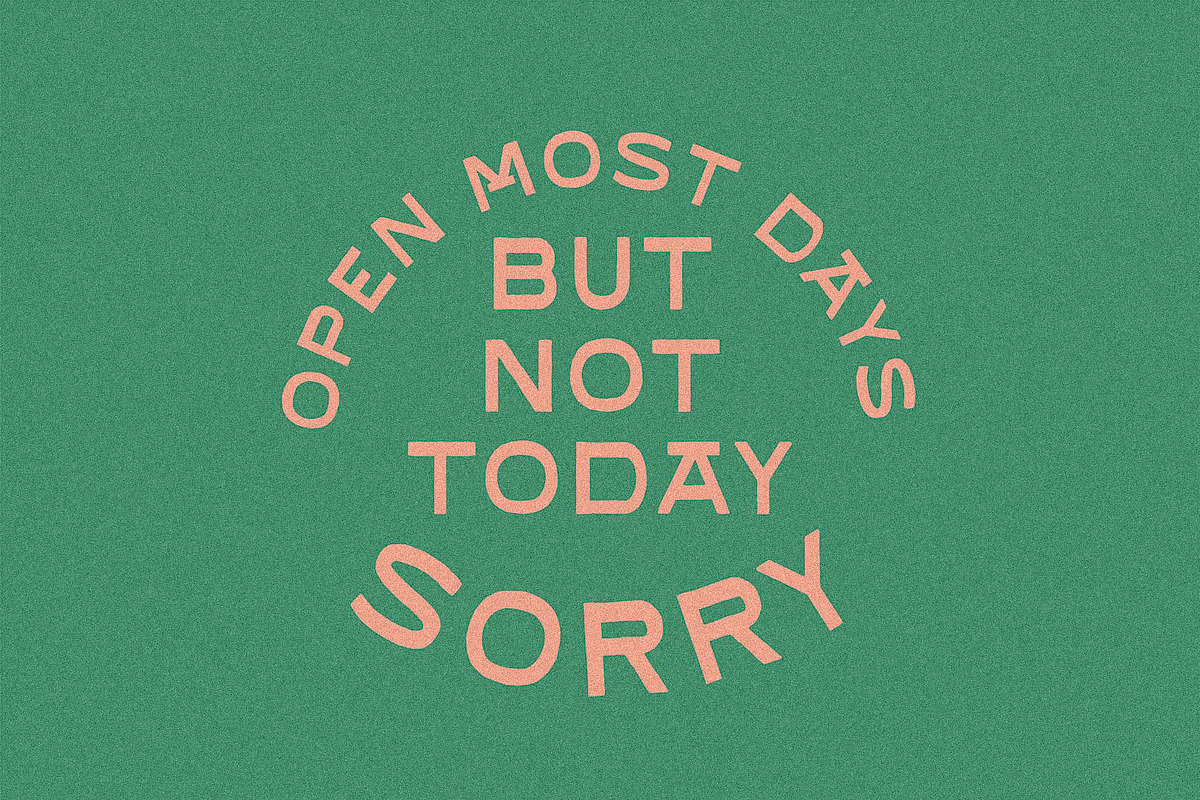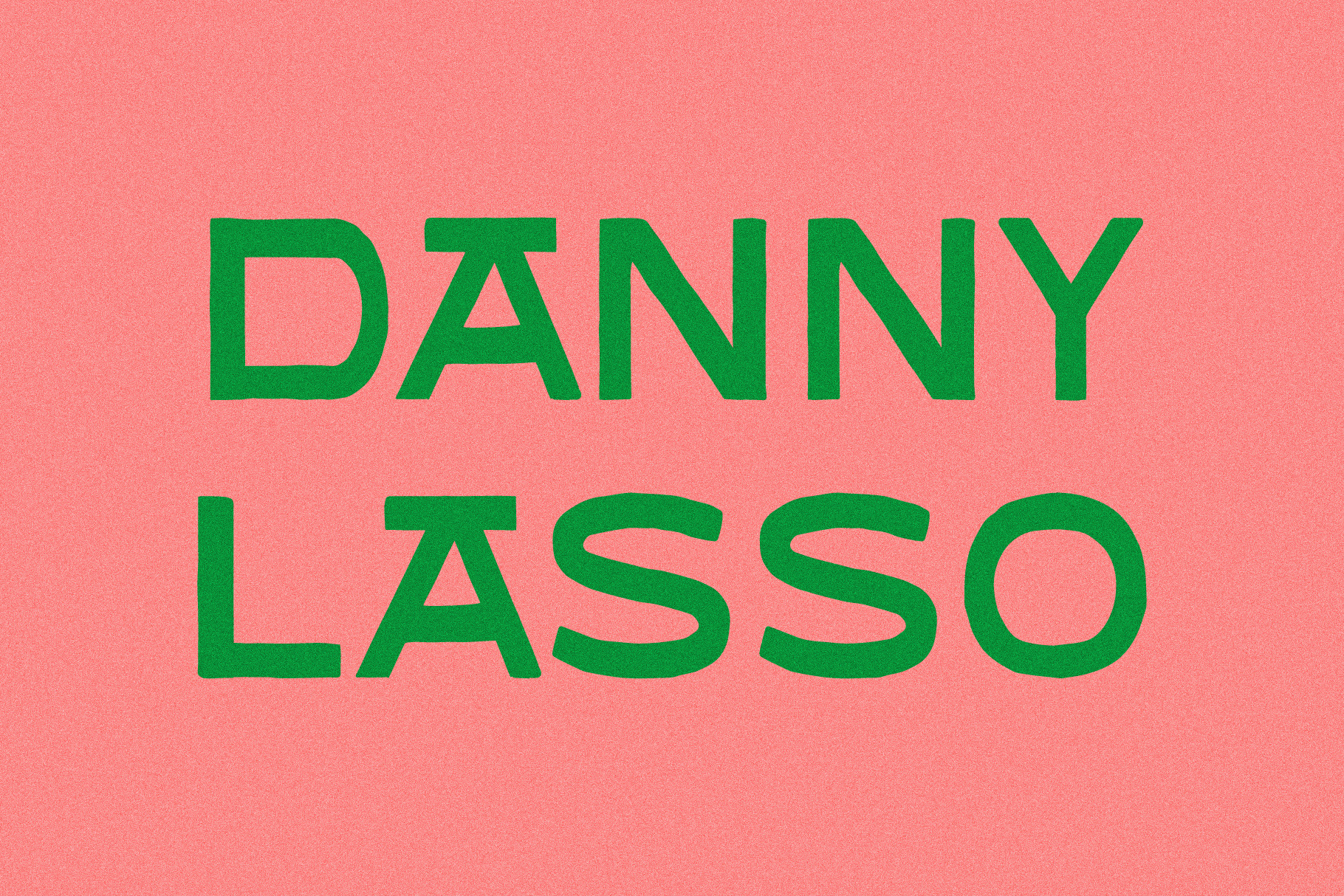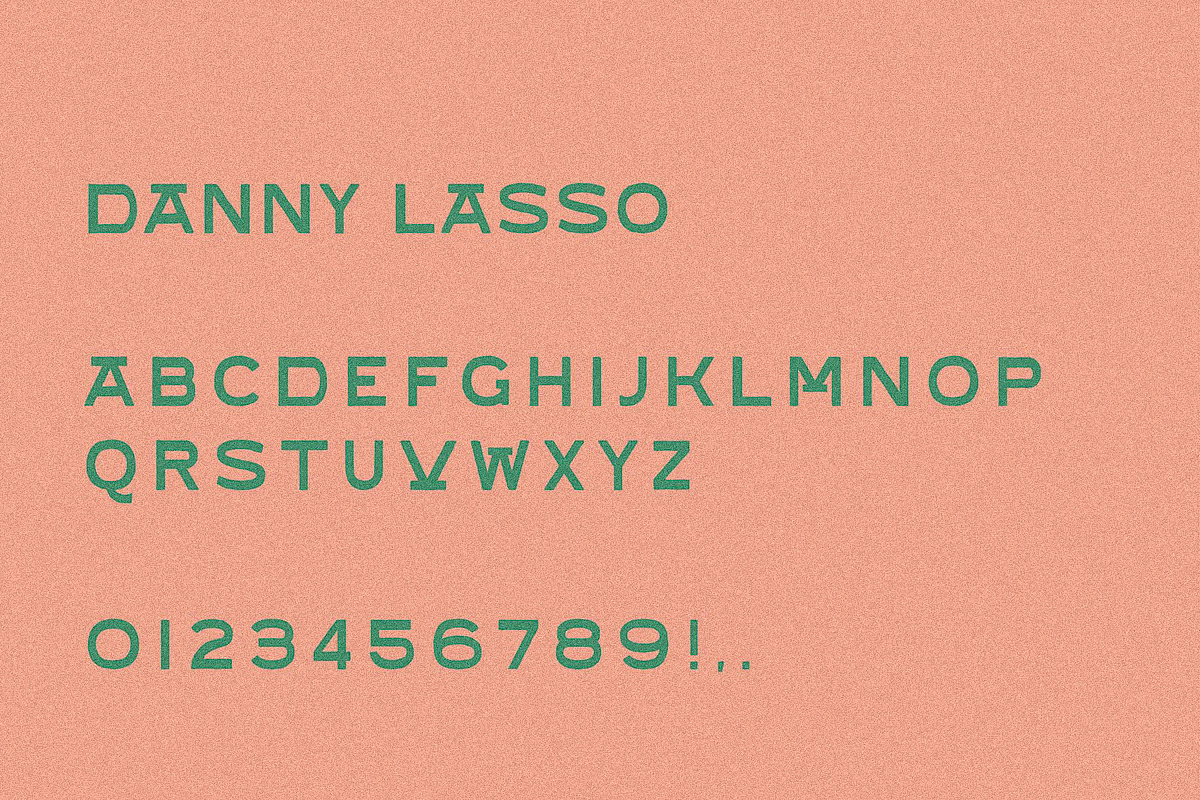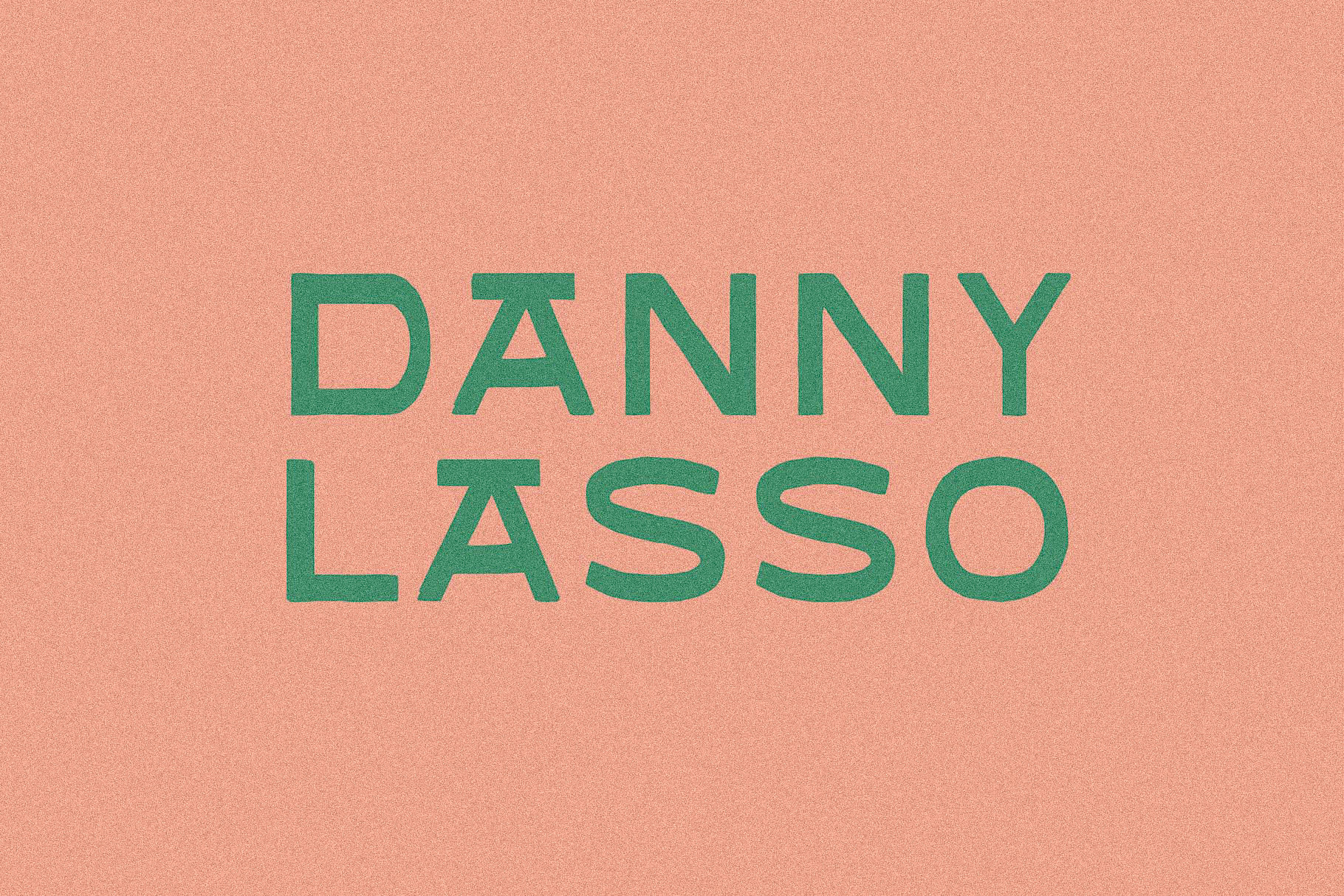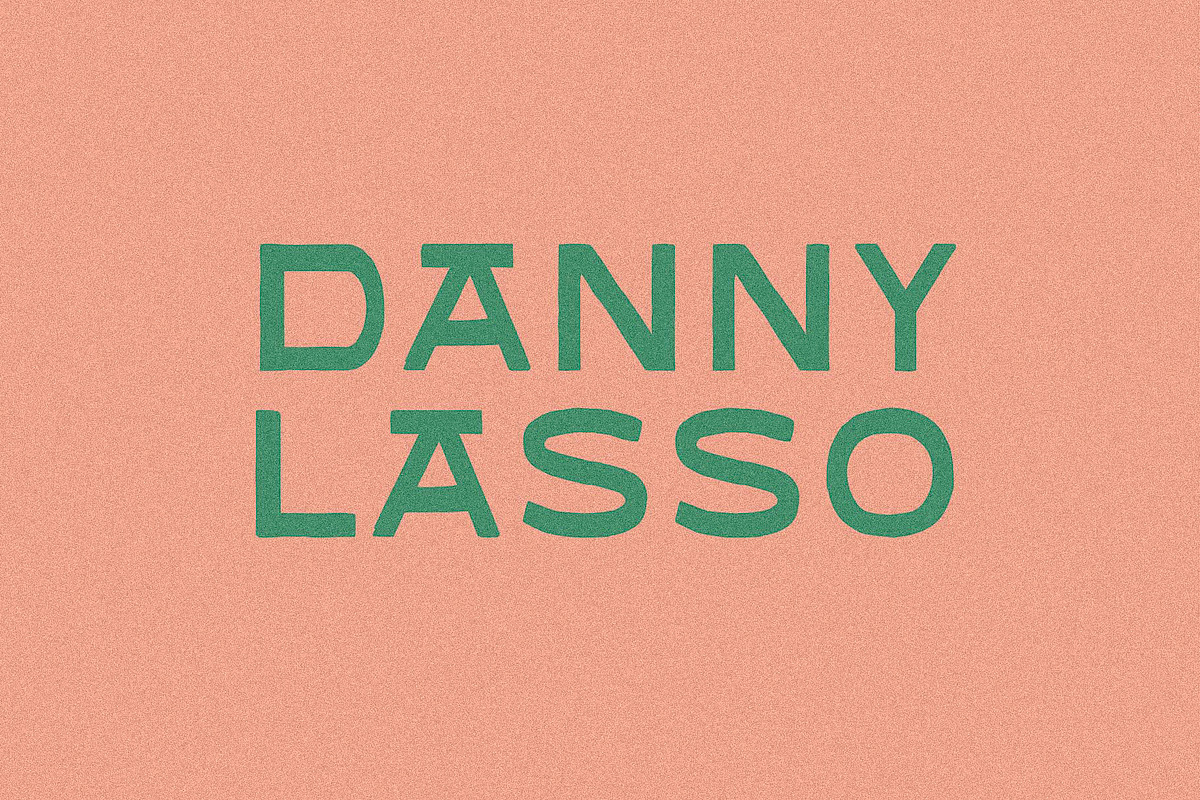
Danny Lasso I A Hyrid Font
Danny Lasso is a spin-off with its own personality.
Inspired by the structure of Johnny Jukebox, it introduces unique crossbar styling with regular alternates to keep things versatile. Use it when you want something that stands out, but still plays nice.
Basic Latin support with a limited set of accented characters.